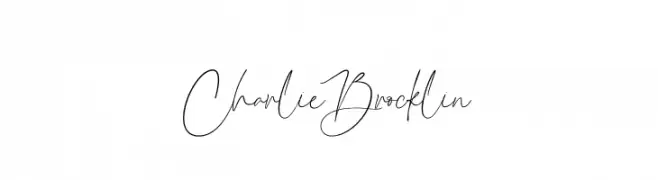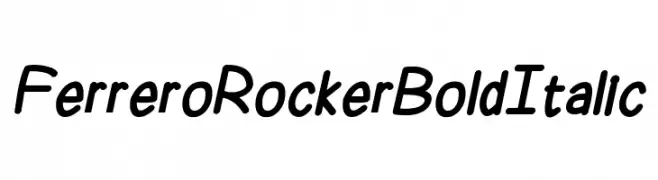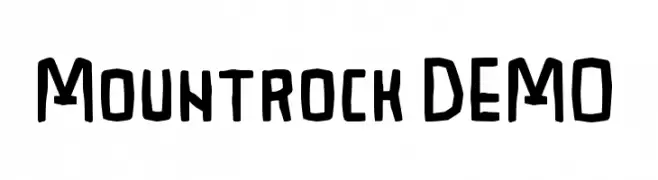
A dynamic, brush-style font with expressive, hand-drawn strokes.
A bold, hand-drawn font with a rugged and organic style.
A bold, high-contrast serif font with sharp serifs and a dramatic style.
A bold, dynamic script font with expressive, cursive letterforms.
A modern, geometric font with sharp angles and a futuristic aesthetic.
A bold, blocky font with a modern yet retro feel, perfect for impactful designs.
A delicate and flowing script font with elegant, elongated letterforms.
A bold, brush script font with dynamic, textured strokes.
A bold, playful font with a three-dimensional, cartoonish style.
A bold, italic font with smooth, rounded characters and a dynamic slant.